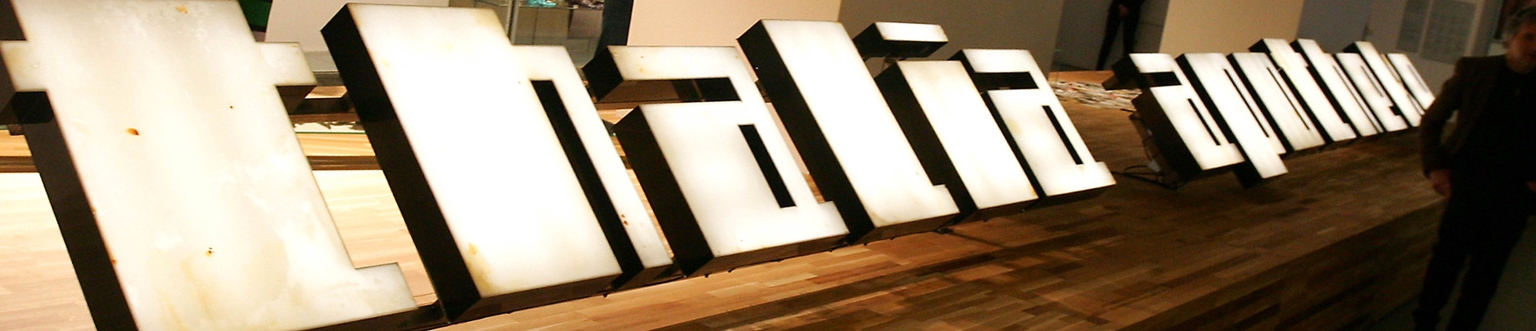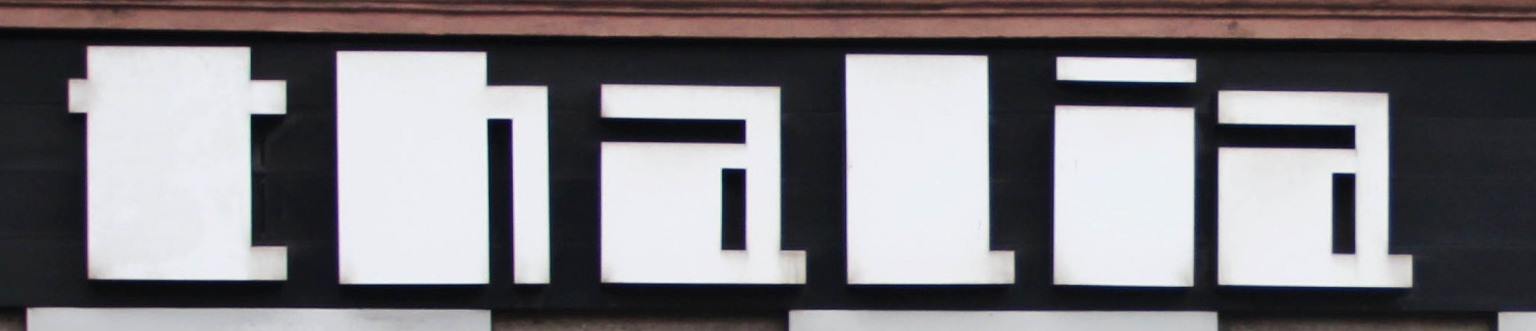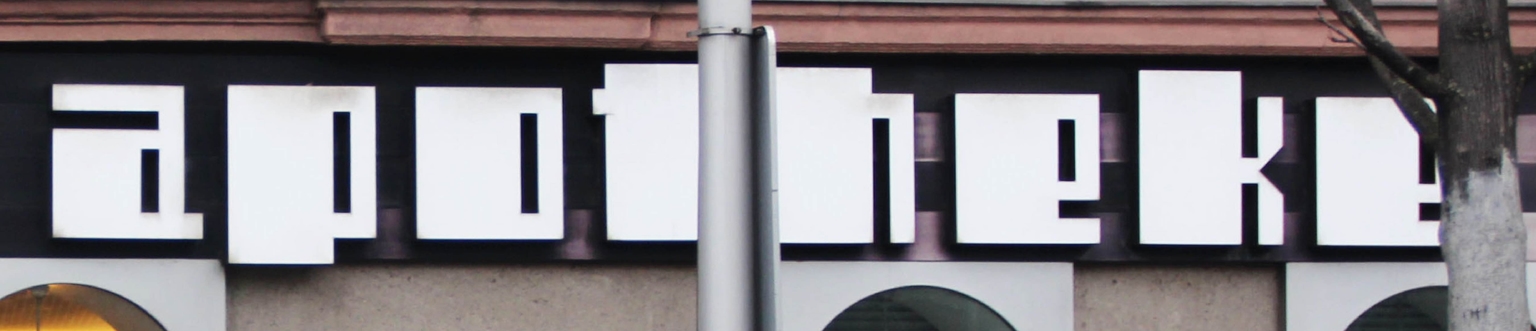
Kantoor
Kantoor is a modular, squarish display typeface designed by Ramiro Espinoza, inspired by a handsome vintage sign for the Thalia pharmacy in Vienna. The design caught Espinoza’s eye in Ghostletters Vienna: Traces of Urban Identity, the book by Tom Koch documenting the fading typographic heritage of the city. The Thalia sign, with its rigid geometry and confident simplicity, stood out as a rare example of functional yet expressive lettering.
Removed from its original location on Thaliastraße in 2013, the sign now lives on as part of the collection at the MAK Design Laboratory (Museum of Applied Arts). With Kantoor, Espinoza transforms this forgotten urban relic into a complete typeface—modular, minimal, and full of quiet authority.
Ideal for impactful signage, branding, posters, museum communication, websites, computer games, packaging, toys, and mass-produced goods, Kantoor brings a piece of Vienna’s mid-century commercial character into the digital age. Now available through Brutal Types, it invites designers to work with a voice shaped by urban memory and typographic restraint.